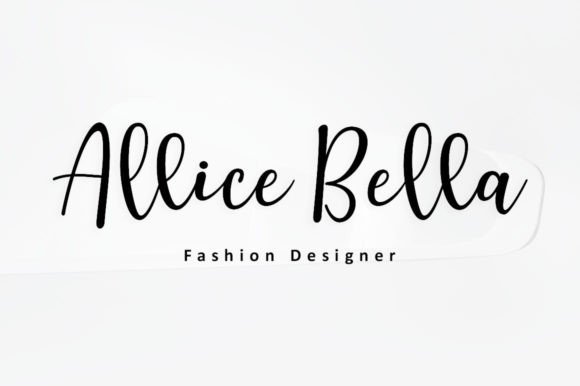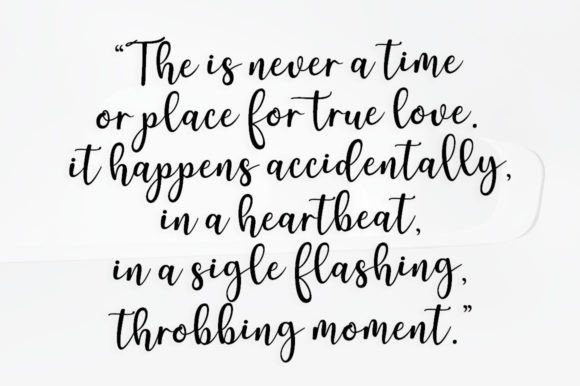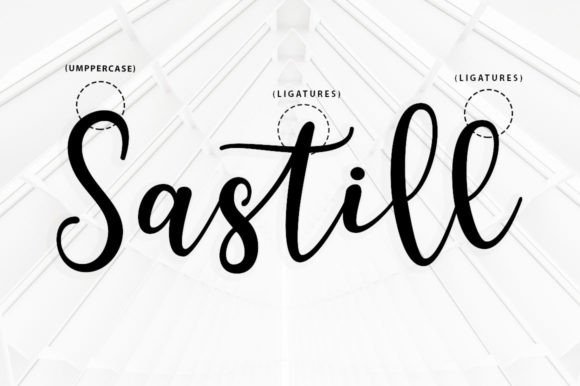
Introduction to Sastill Font
Have you ever found yourself stuck in a creative rut, staring at a blank canvas or screen, desperately searching for the perfect design element to bring your vision to life? We’ve all been there. But what if you could add a touch of elegance and sophistication to your next project with just a few clicks? Enter the Sastill Font, a stunning handwritten font that’s sure to elevate your designs and leave a lasting impression.
As a valuable resource for designers, the Sastill Font offers a high-quality, versatile solution for any creative project. Its smooth and classy design makes it perfect for a wide range of applications, from branding and marketing materials to social media graphics and web design. With its transparent background and free download option, you can easily integrate this design resource into your workflow and start creating stunning visuals in no time.
Whether you’re a seasoned pro or just starting out, the Sastill Font is a must-have addition to your design arsenal. Its PUA-encoded glyphs and swashes make it easy to access and customize, giving you the freedom to experiment and push the boundaries of your creativity. So why wait? Download the Sastill Font today and discover a whole new world of design possibilities!
Key Features of Sastill Font
- Unique, modern font style with a transparent background, perfect for backgrounds, overlays, and graphics.
- Includes a comprehensive character set, including uppercase and lowercase letters, numbers, and punctuation marks.
- Designed to be versatile and adaptable for a wide range of creative projects, from digital art to print materials.
Honest Review: Sastill Font
As a designer, I’m always on the lookout for high-quality design resources to enhance my creative projects. Recently, I stumbled upon the Sastill Font, and I’m excited to share my honest review.
- ✨ High-quality design: The Sastill Font boasts a sleek and modern design that’s perfect for a variety of creative projects.
- ✨ Transparent background: The transparent background option allows for seamless integration with other design elements.
- ⚠️ Limited font styles: The Sastill Font only comes in a few styles, which may limit its versatility for certain design projects.
- ⚠️ Not ideal for complex text: The font may not be the best choice for complex text or long paragraphs due to its minimalist design.
Overall, I’m impressed with the Sastill Font, and I appreciate its high-quality design and transparent background. While it may have some limitations, it’s an excellent resource for designers looking for a modern and sleek font for their creative projects.
Tips for Getting the Most Out of Sastill Font
For the best results, use Sastill Font in conjunction with a high-quality image or design element. You can also experiment with different font sizes and colors to create a unique look. Sastill Font is a versatile design resource that is perfect for a variety of creative projects.
Sastill Font is commonly used for business cards, brochures, and other marketing materials. It’s also a popular choice for web designers and developers who need a high-quality font for their websites. With its transparent background, Sastill Font is perfect for overlaying on images or other designs.